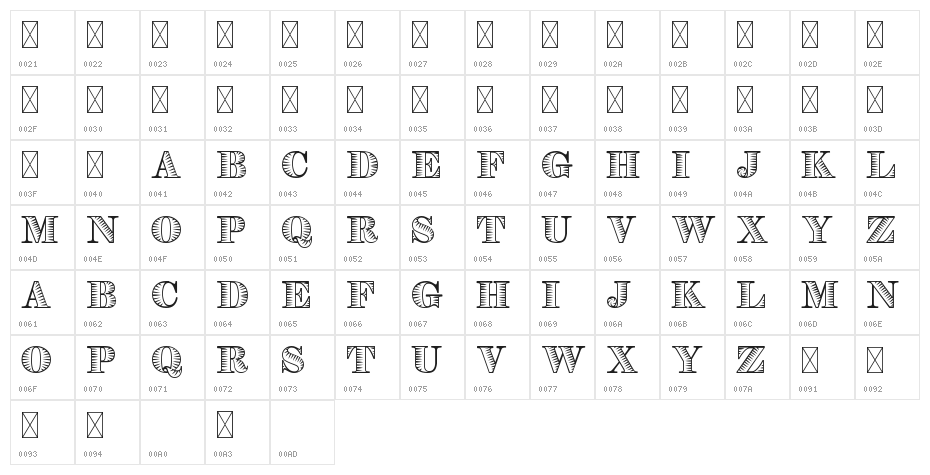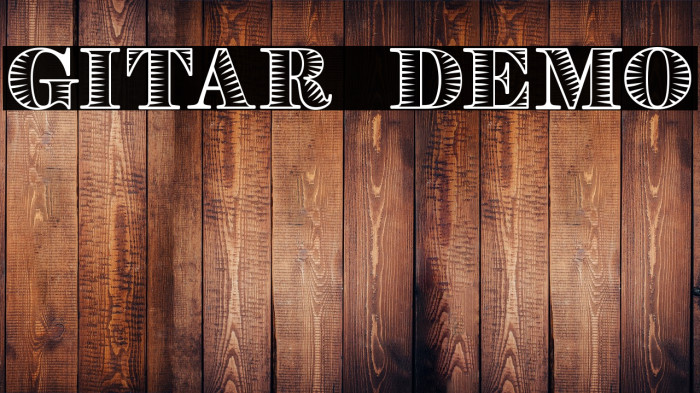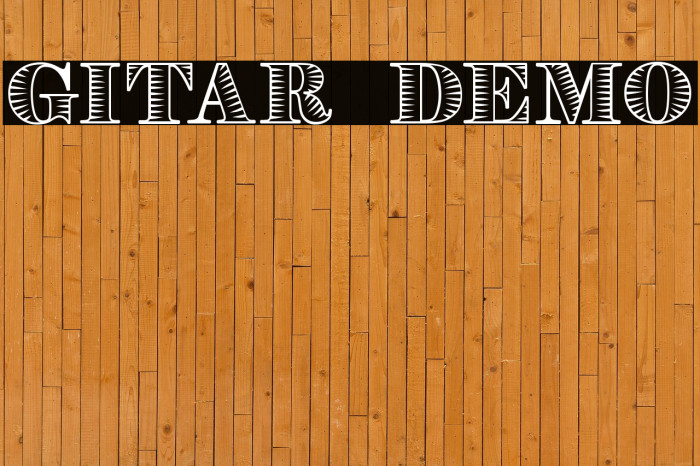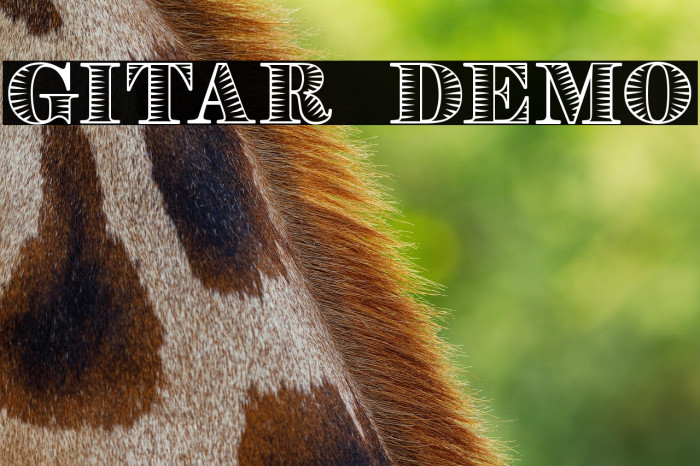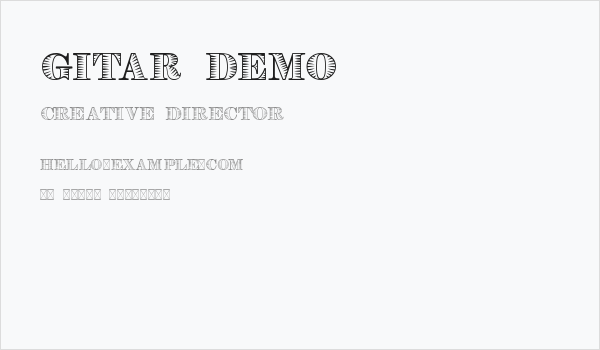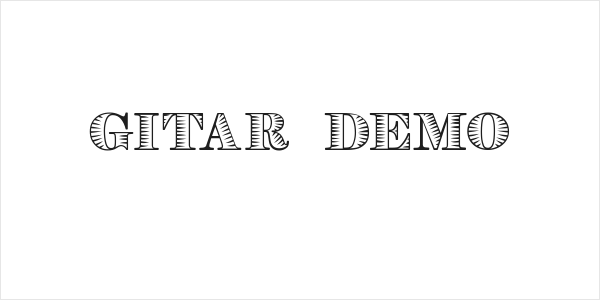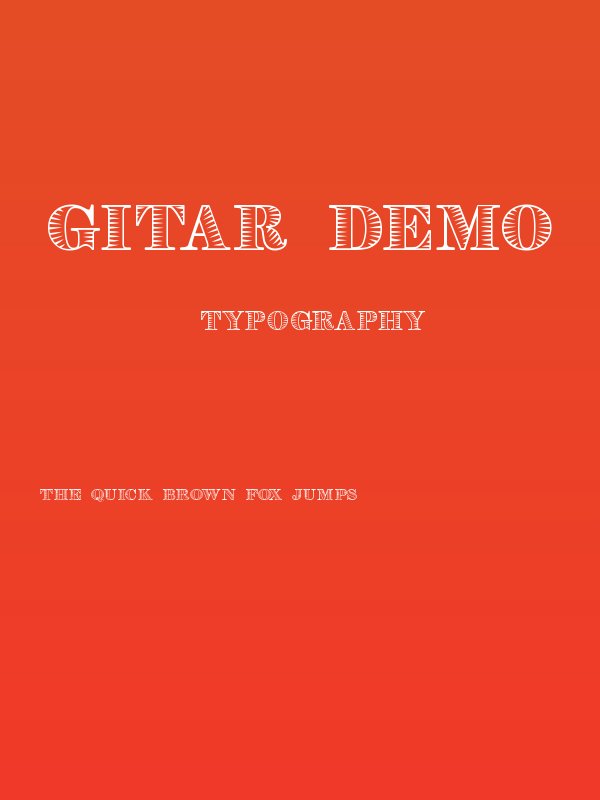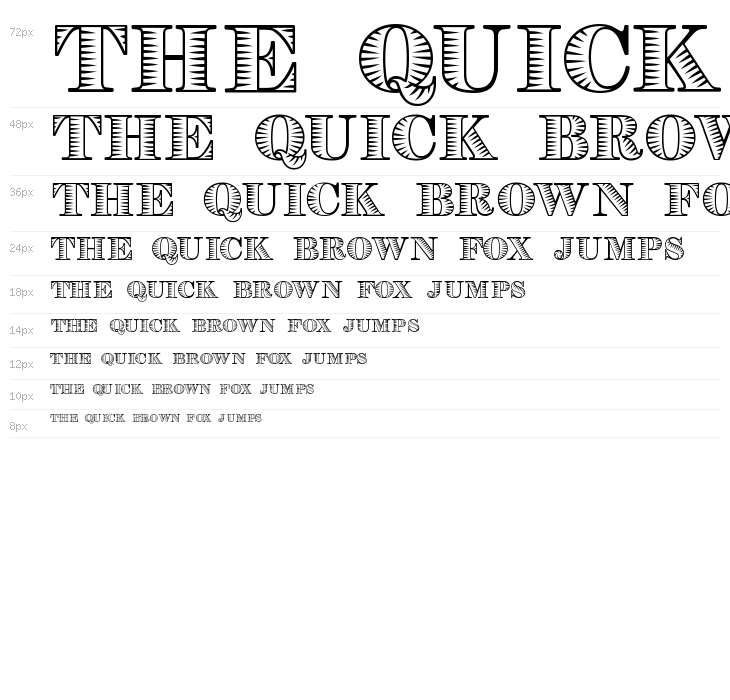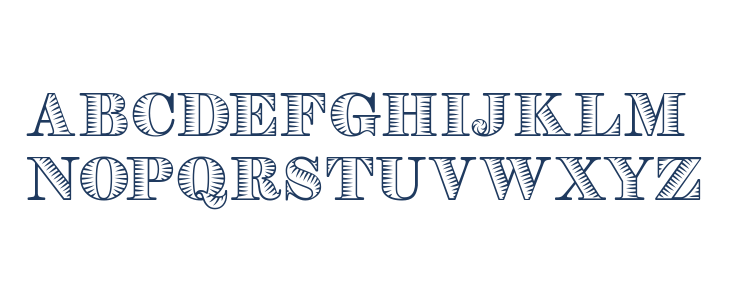
Gitar Demo Font
Gitar Demo Description
This font features a bold and decorative style with a unique striped pattern filling each character. The uppercase letters are designed with a strong presence, making them ideal for attention-grabbing headlines or titles. The font's playful yet structured appearance is achieved through its consistent line work and geometric shapes, giving it a modern yet slightly vintage feel. The characters are evenly spaced, ensuring readability while maintaining a distinct visual appeal. This font is perfect for projects that require a touch of creativity and boldness, such as posters, branding, and packaging.
| Overall Style | Modern, Vintage |
| Proposed Projects | Posters, branding, packaging, titles, and creative design projects. |